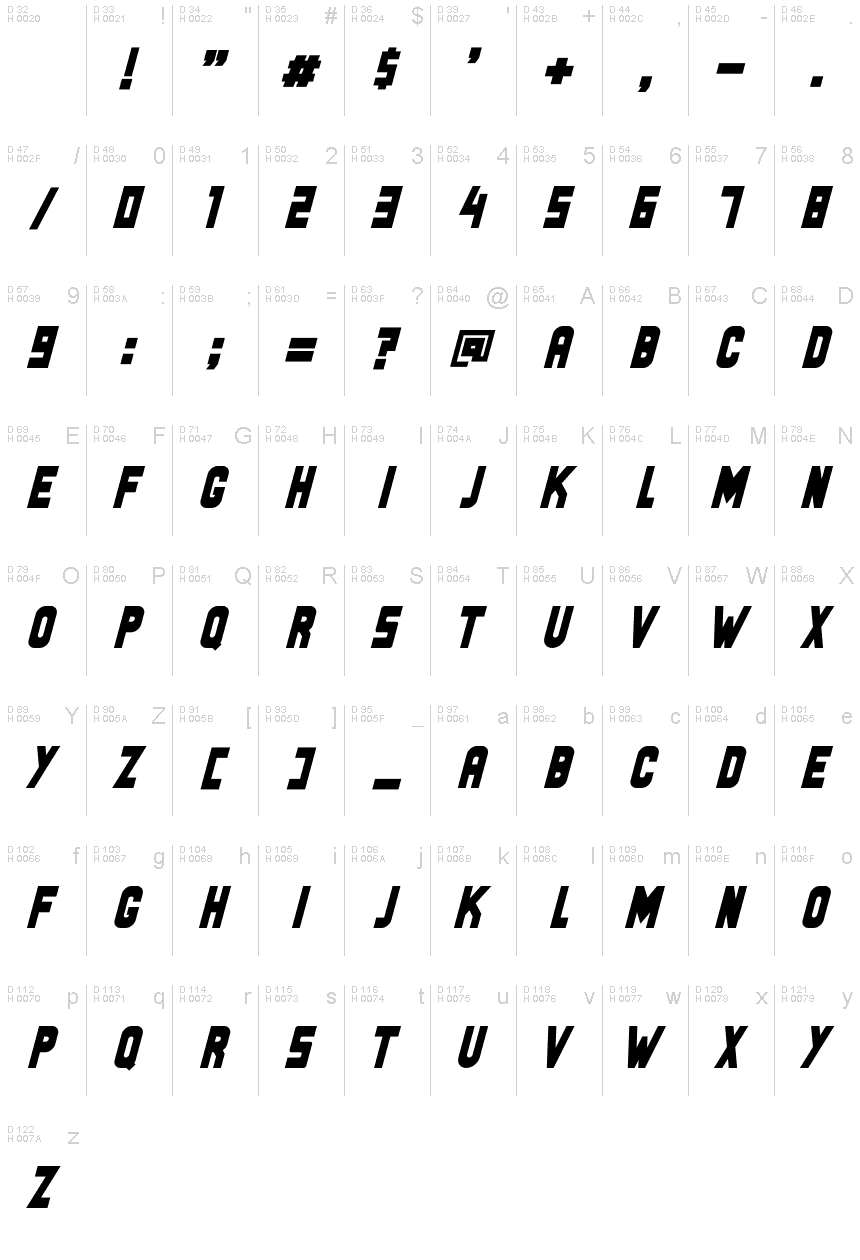
Rocket Italic
Rocket Italic is the perfect font for projects that demand a touch of modernity and boldness. With its sleek design and condensed width, this sans serif typeface adds a unique flair to any project.
Whether it's a futuristic tech startup logo, an edgy fashion magazine layout, or an eye-catching website header, Rocket Italic commands attention with its stylish and contemporary appeal.
Designed by the talented Design Vector10, this font is ready to take your creative endeavors to new heights.